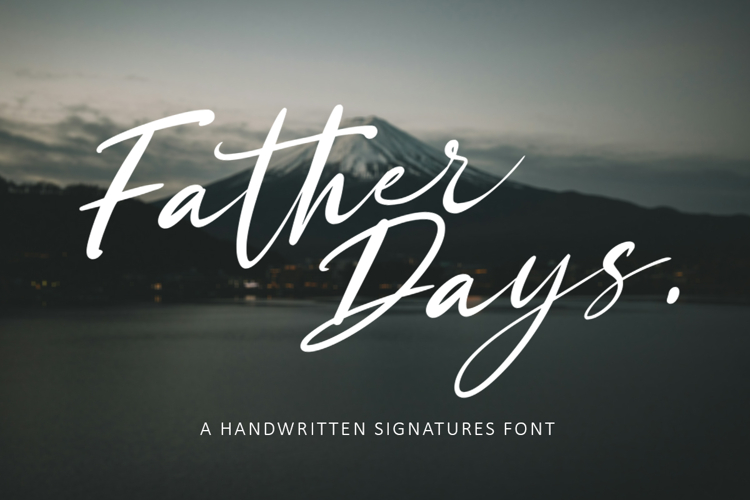
Father Days
Elevate your designs with the authentic touch of Father Days. This handwritten signature font captures the essence of a natural pen stroke, blending organic flow with a bold, sophisticated character. Designed to feel professional, its sharp and elegant curves create a premium aesthetic that stands out in any composition. Father Days is the perfect choice for high-end branding, luxury logos, and editorial layouts.
Whether you are crafting wedding invitations, social media quotes, or a professional watermark for photography, this font adds a human touch that feels both timeless and modern. Its versatile style works seamlessly across stationery, fashion branding, and personalized gift designs, offering a unique identity to every project.